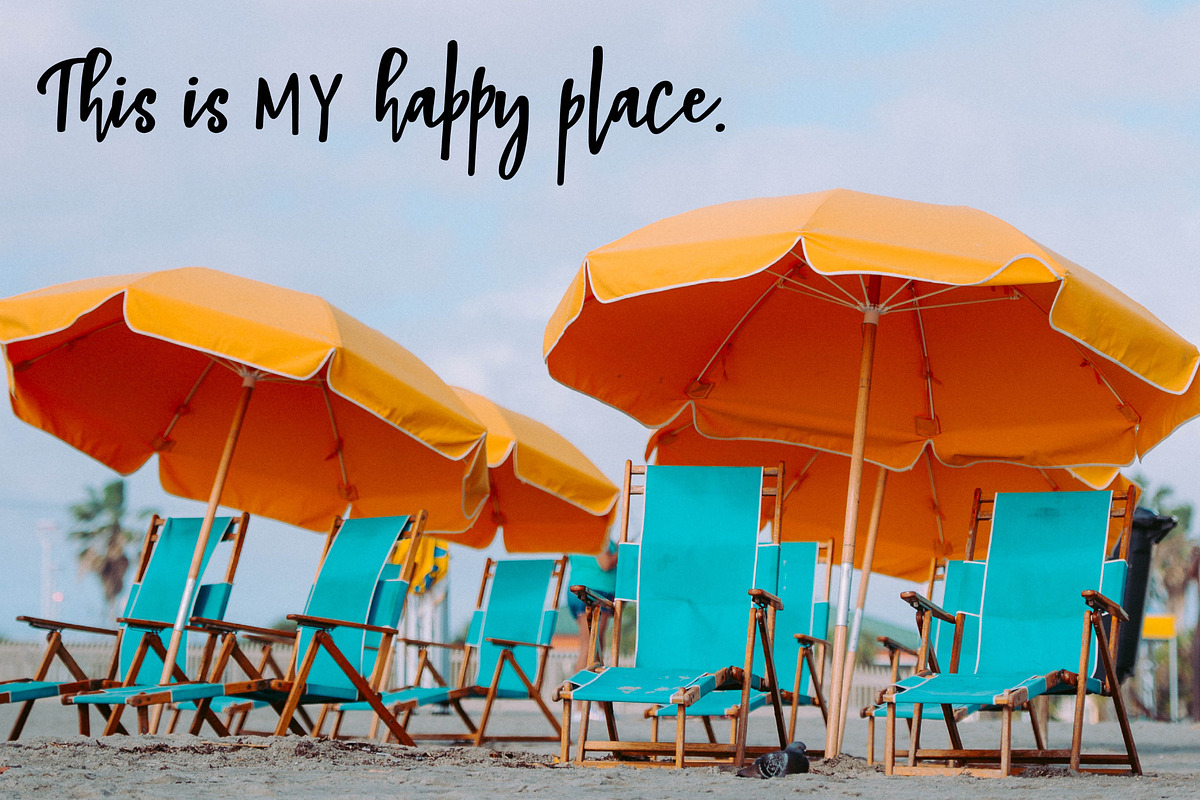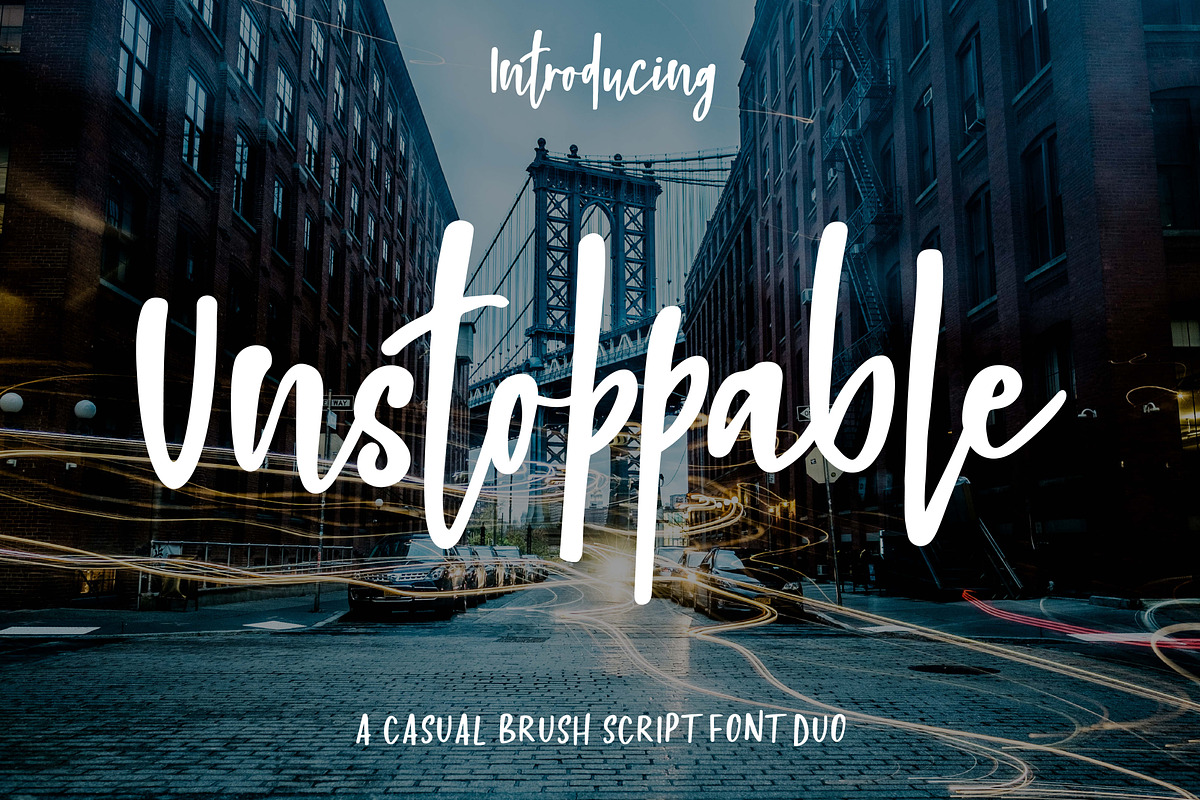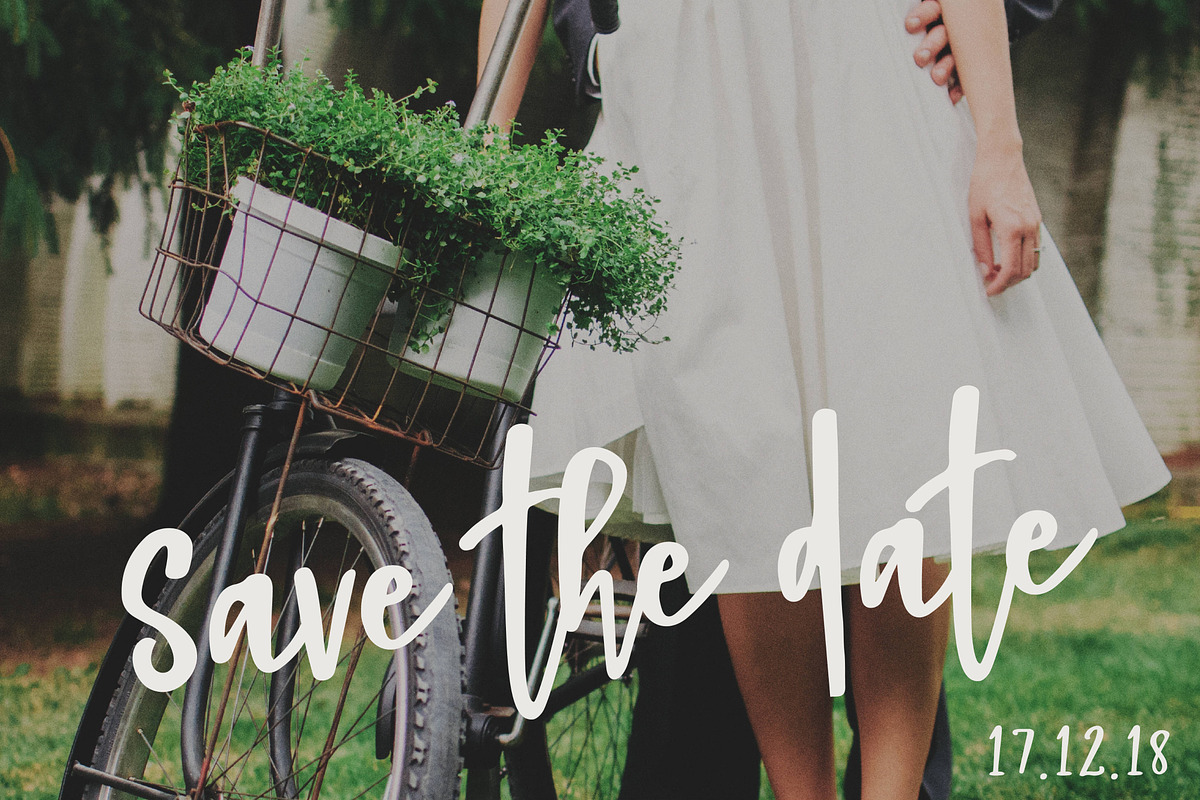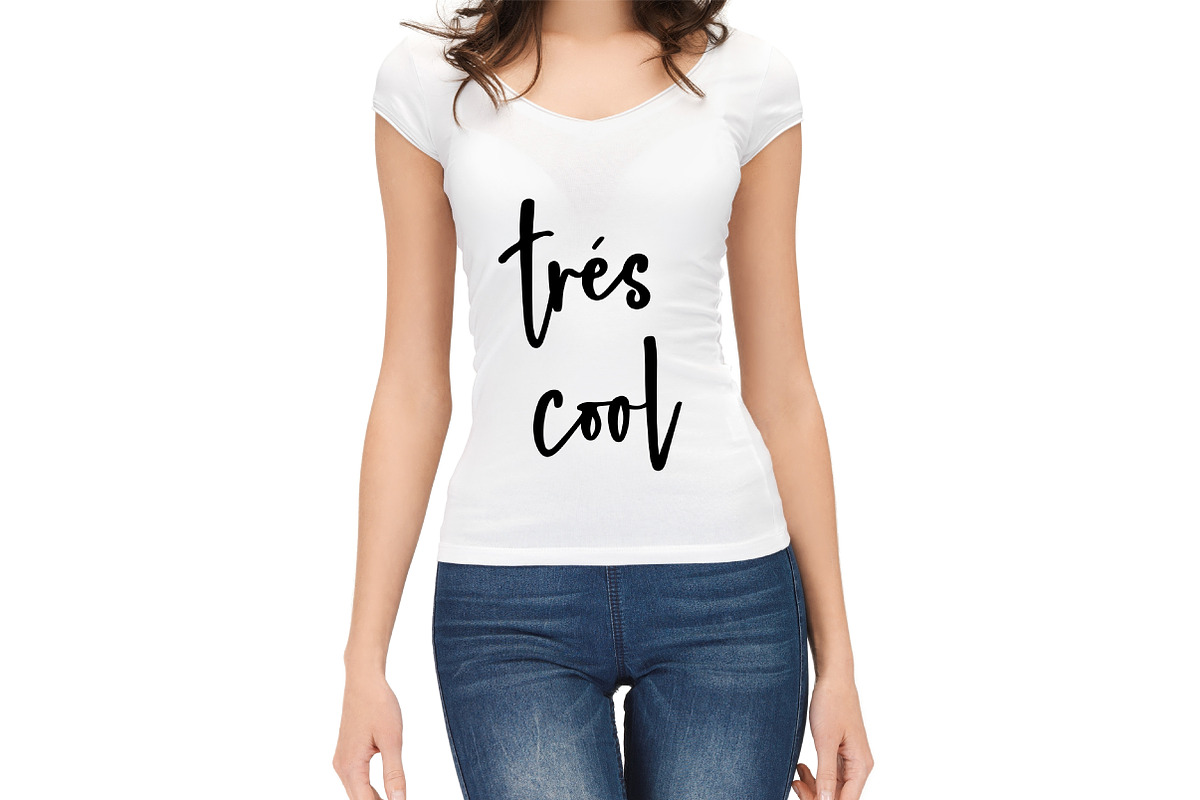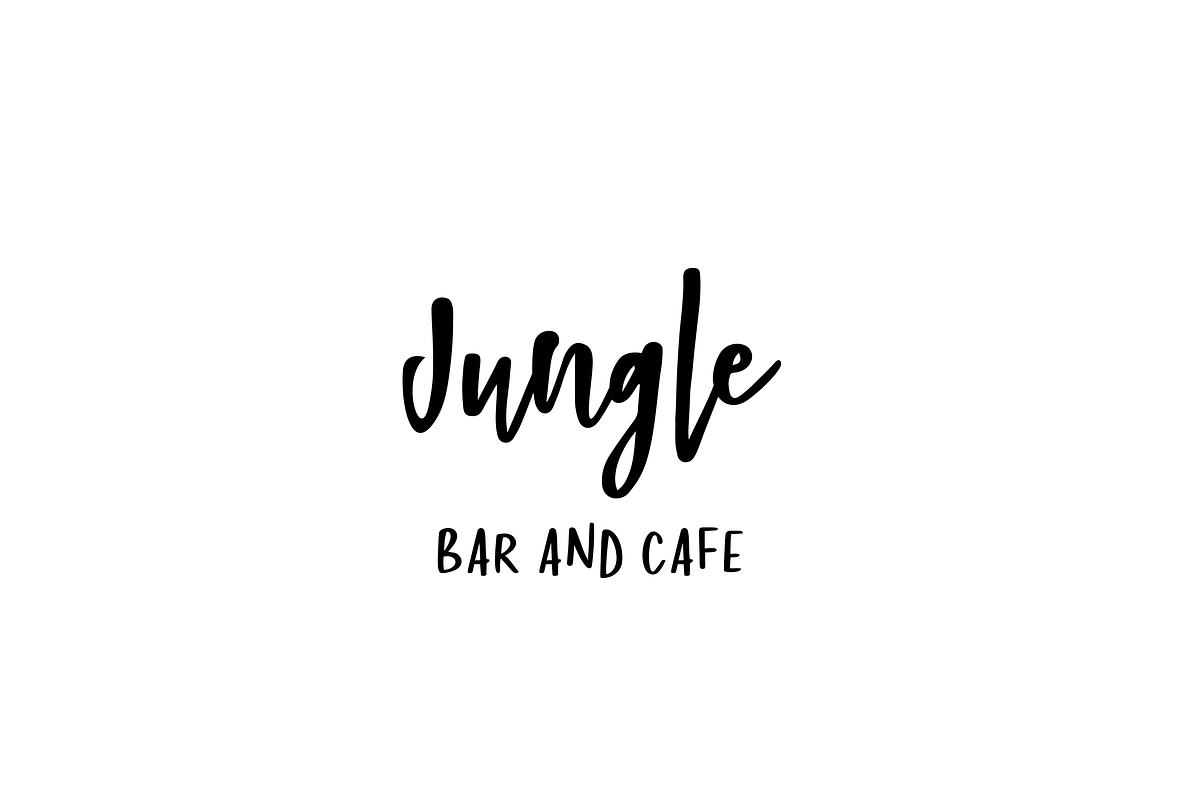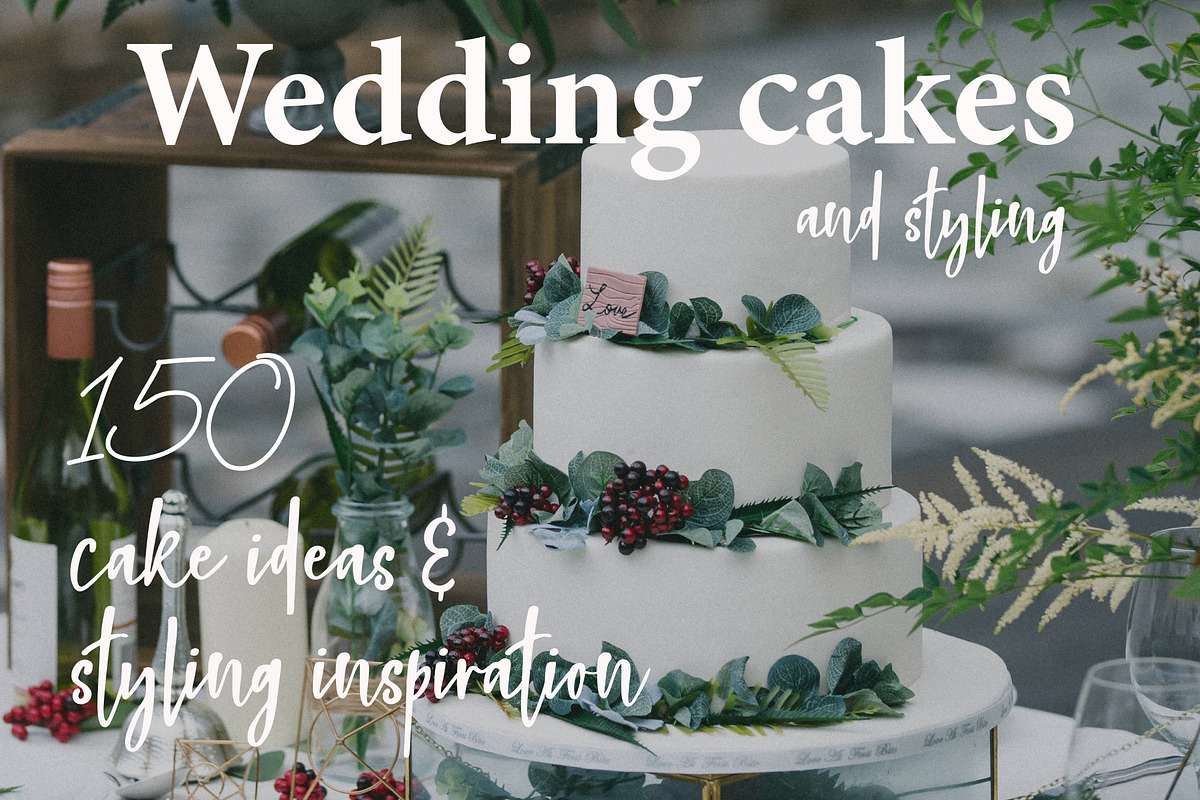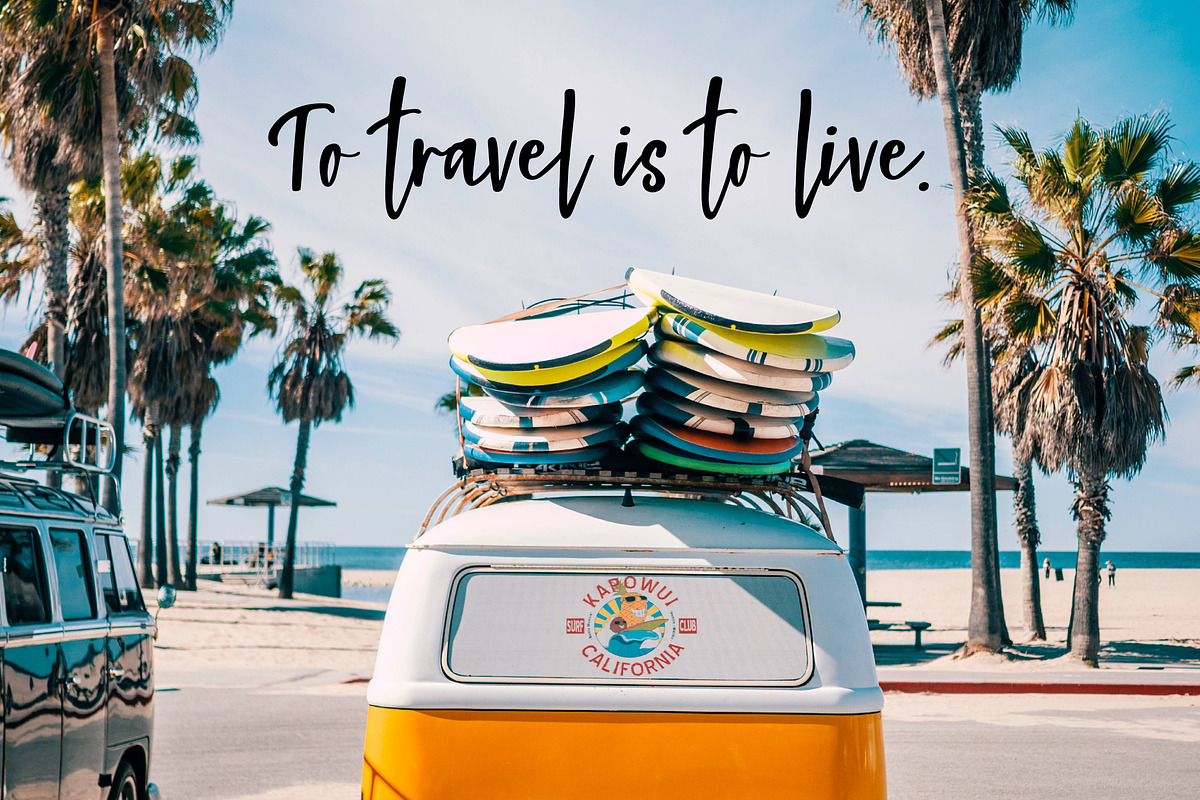
Unstoppable Font Duo
Introducing Unstoppable, a casual brush script font duo that comes with a whimsical bounce script font and a complimentary sans serif font. Unstoppable is the perfect font for all your design needs, from designing logos, to wedding invites, to packaging design, photo overlays, apparel design, magazines and so much more!
Unstoppable Script - contains uppercase, lowercase, numbers and punctuations, ligatures as well as international support.
- Unstoppable Sans - contains uppercase, lowercase as well as numbers and punctuations.